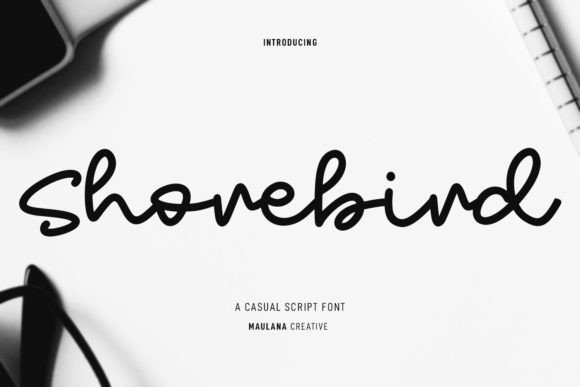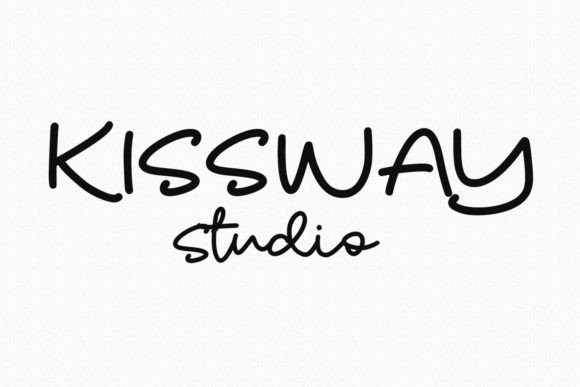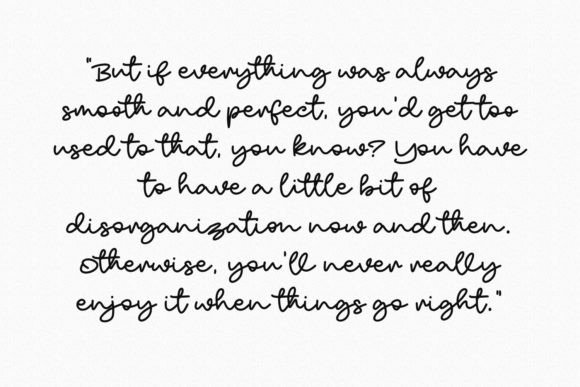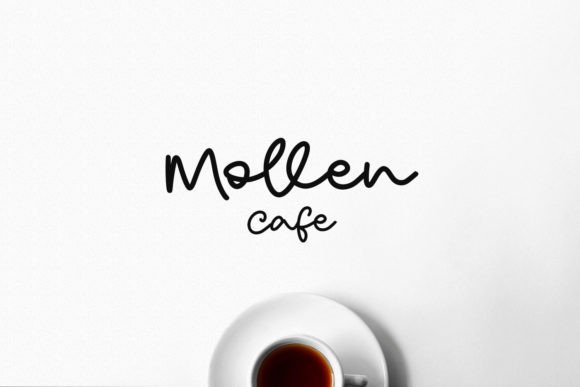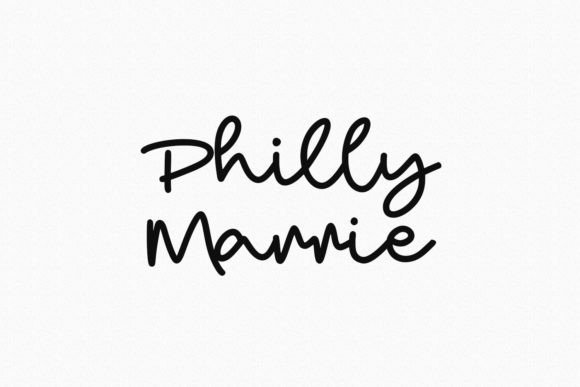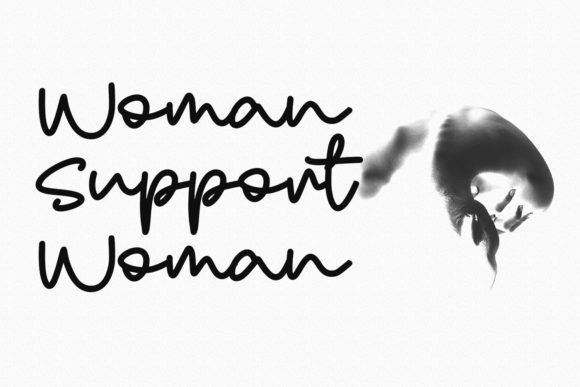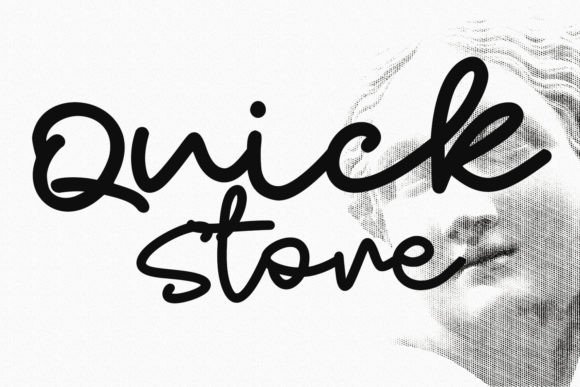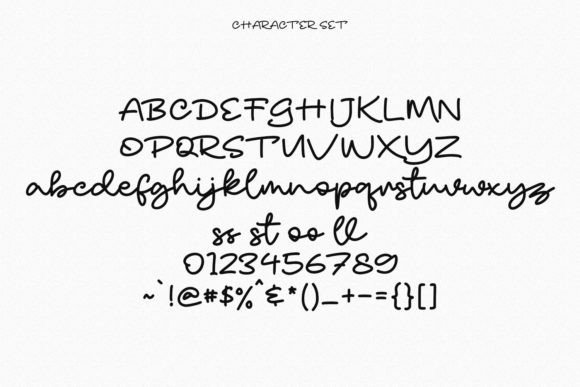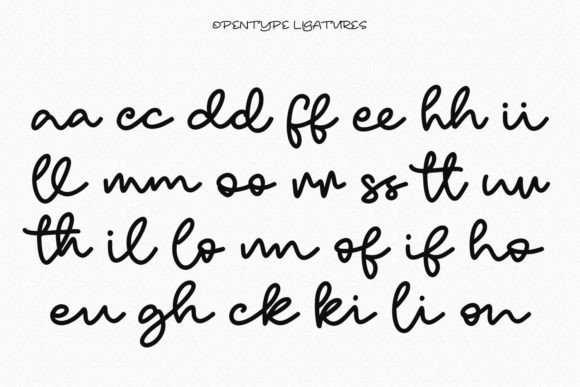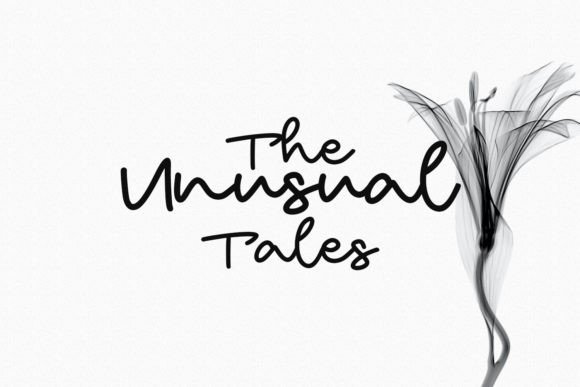
Shorebird Font
About Shorebird Font
“Shorebird” is more than just a font; it’s a casual minimalist script typeface that brings a contemporary and fresh vibe to your designs. Whether you’re working on branding, graphics, or any creative project, “Shorebird” is designed to add a touch of simplicity and elegance, making your creations outstanding.
The casual and minimalist nature of “Shorebird” is immediately apparent in its script design. Each letter is crafted with simplicity in mind, contributing to an overall aesthetic that is both modern and clean. This makes it an ideal choice for projects that demand a casual and uncluttered look.
The versatility of “Shorebird” shines through in its ability to adapt to various design contexts. Imagine it gracing product packaging, where its minimalist script adds a touch of contemporary elegance. Picture it in digital graphics, creating a clean and modern visual identity for your brand.
With its contemporary and fresh style, “Shorebird” becomes a font that effortlessly enhances the visual appeal of your creative projects. Let it be the choice for making your designs outstanding, offering a balance of simplicity and sophistication.
In summary, “Shorebird” is not just a font; it’s a design companion that brings a casual minimalist charm to your creative projects. Whether you’re designing logos, packaging, or graphics, let “Shorebird” be the element that adds a touch of contemporary elegance. With “Shorebird,” simplicity becomes a powerful tool for making your designs stand out.